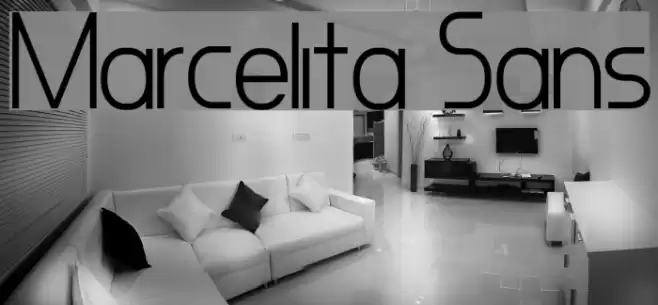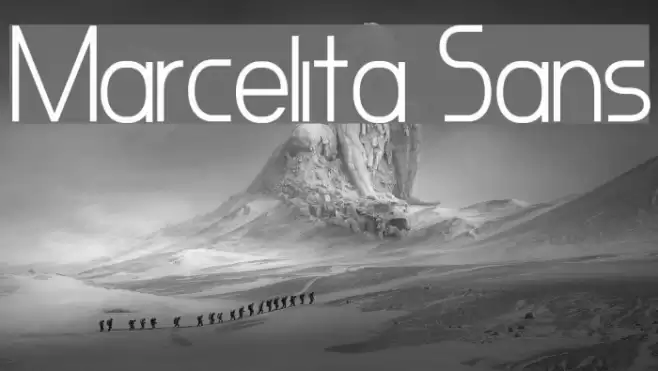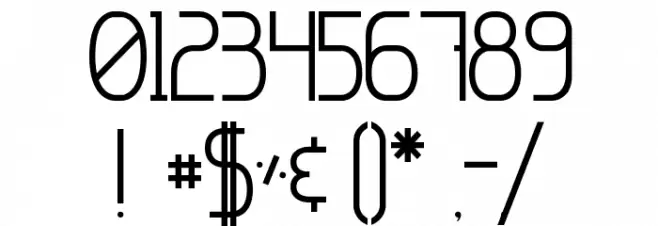
Marcelita Sans Font
Marcelita Sans Description
This font features a clean and modern sans-serif style with a geometric structure. The characters are evenly spaced, providing a balanced and harmonious appearance. The uppercase letters are tall and slender, while the lowercase letters maintain a consistent height, contributing to its readability. The numerals are distinct and clear, making them suitable for various applications. Special characters are well-defined, adding versatility to the font. Its overall design is sleek and contemporary, making it ideal for digital and print media.
A modern, geometric sans-serif font with clean lines and balanced spacing from Uncategorized fonts.